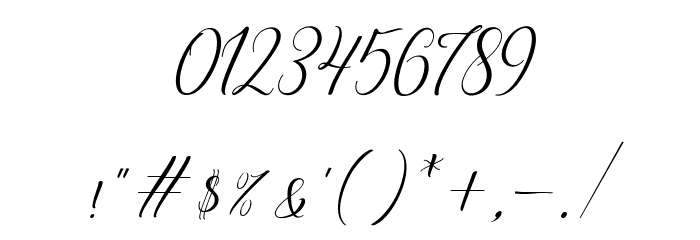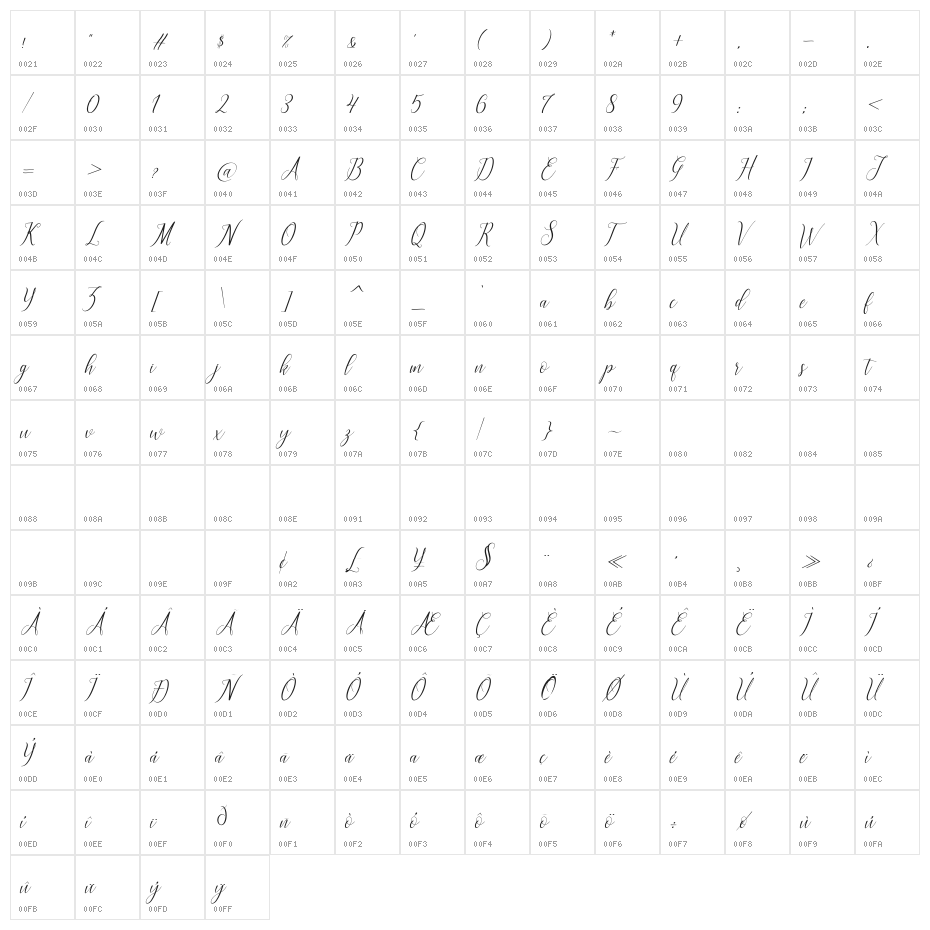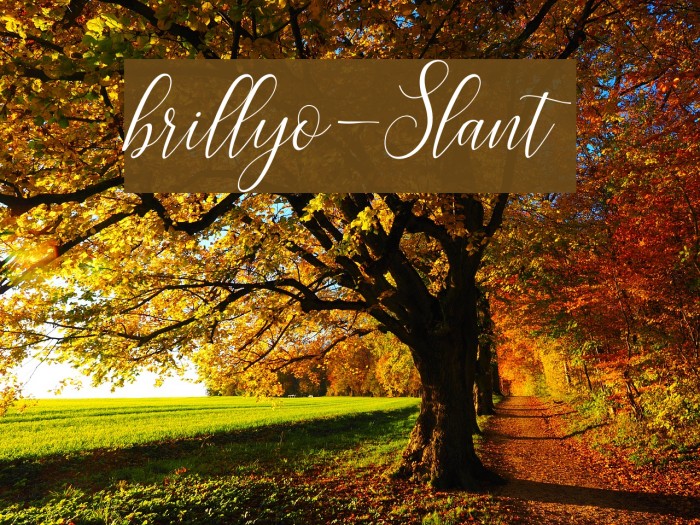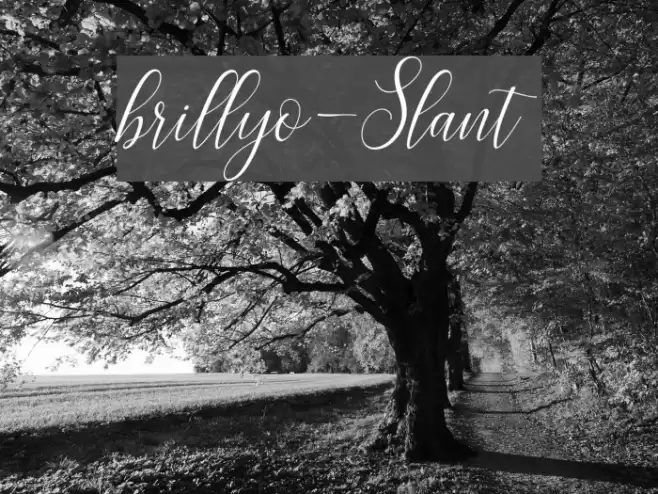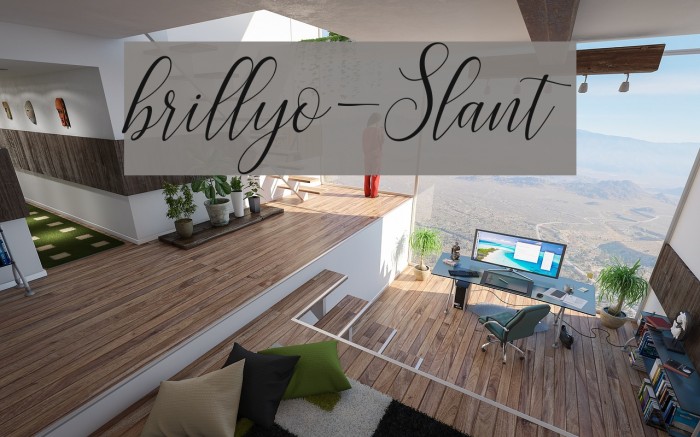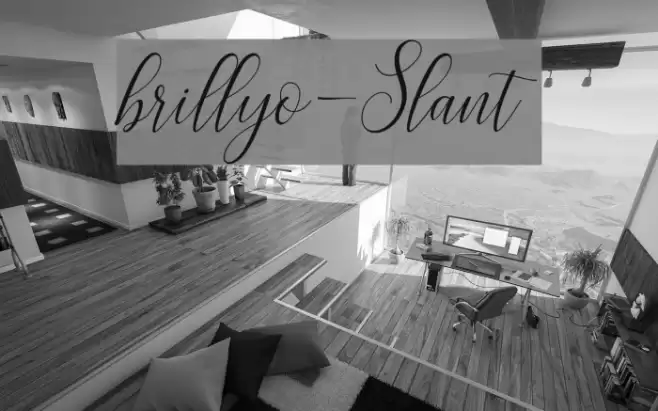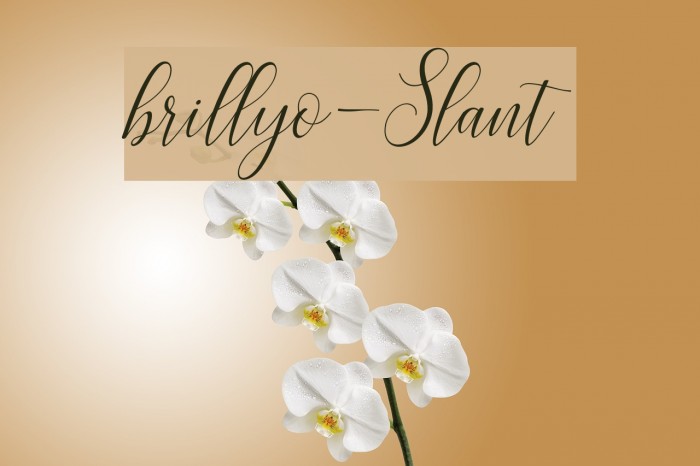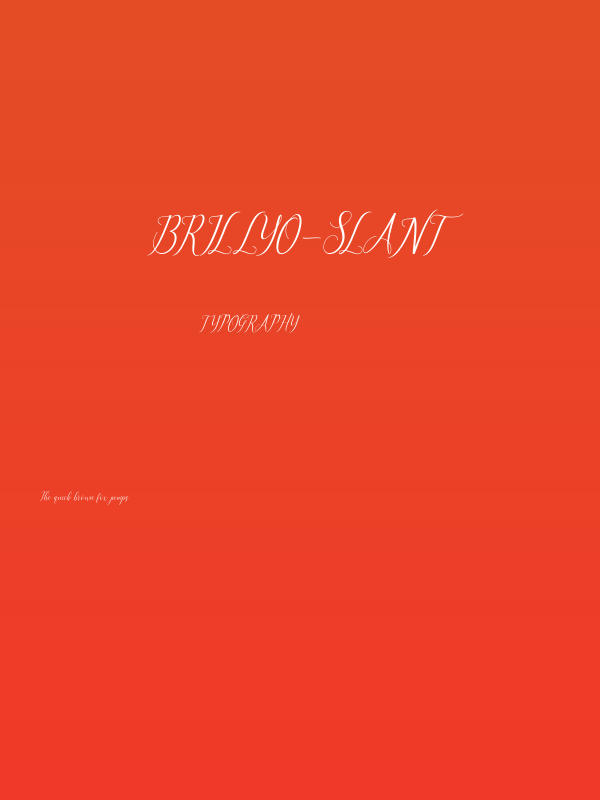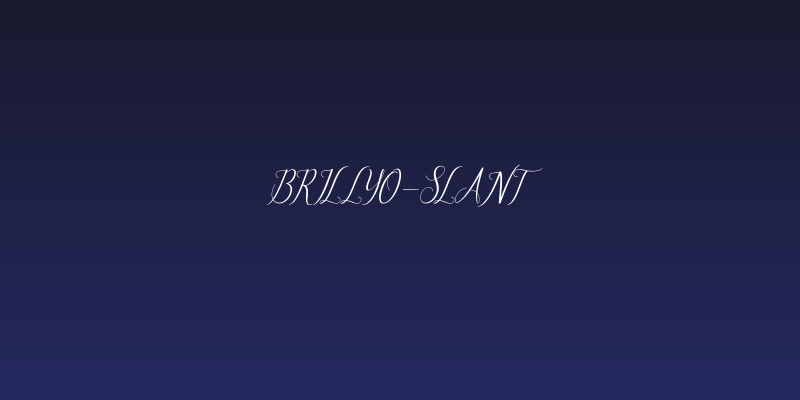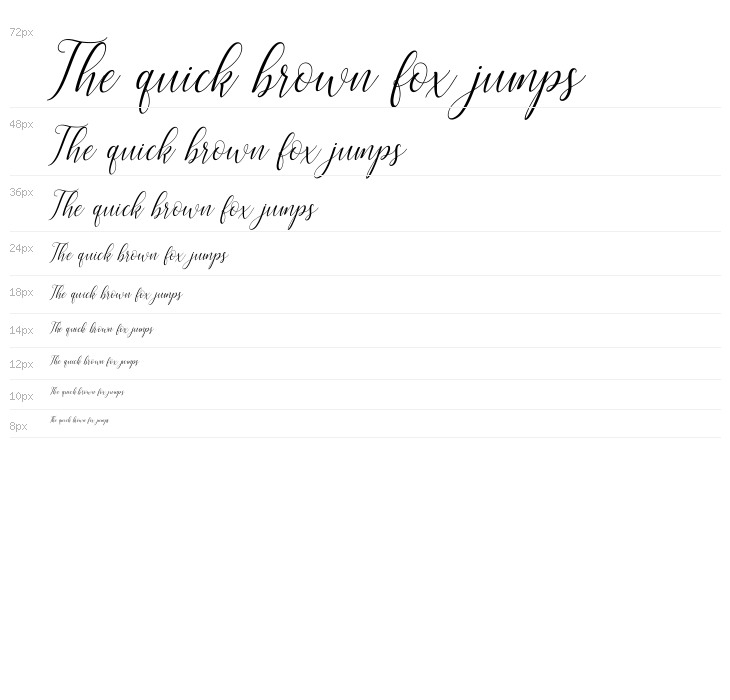
brillyo-Slant Font
brillyo-Slant Description
This elegant script font features a flowing, cursive style with a pronounced slant, giving it a sophisticated and graceful appearance. The characters are intricately designed with delicate loops and swashes, enhancing its decorative appeal. The uppercase letters are particularly ornate, while the lowercase letters maintain a consistent fluidity. The numerals and special characters are crafted to match the overall aesthetic, ensuring a cohesive look. This font is ideal for projects that require a touch of elegance and refinement.
| Proposed Projects | Wedding invitations, luxury branding, elegant stationery, high-end product packaging. |